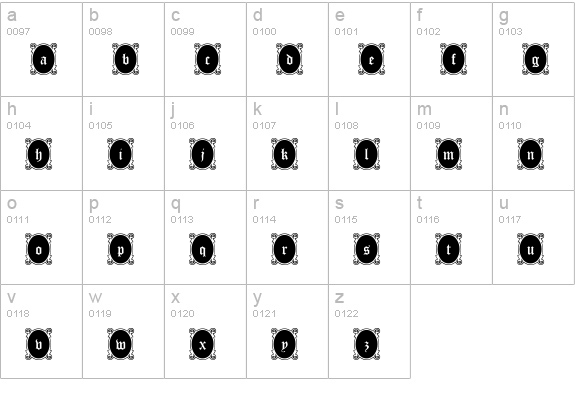
Looking Glass Font Details
Looking Glass font is a visually captivating typeface that combines elegance with a touch of whimsy. Its intricate design features delicate curves and stylish flourishes that give any text a sophisticated and artistic flair. The unique characteristics of Looking Glass make it perfect for a wide range of creative projects, from invitations and posters to branding and packaging. What sets Looking Glass font apart is not only its beauty, but also its versatility. Whether you're looking to add a touch of elegance to a wedding invitation or create a bold statement with a logo design, this font has you covered. With its wide range of weights and styles, Looking Glass offers endless possibilities for customization and creativity. And the best part? Looking Glass font is completely free to download at FontsMarket.com. So go ahead and add a touch of magic to your next project with this stunning typeface.